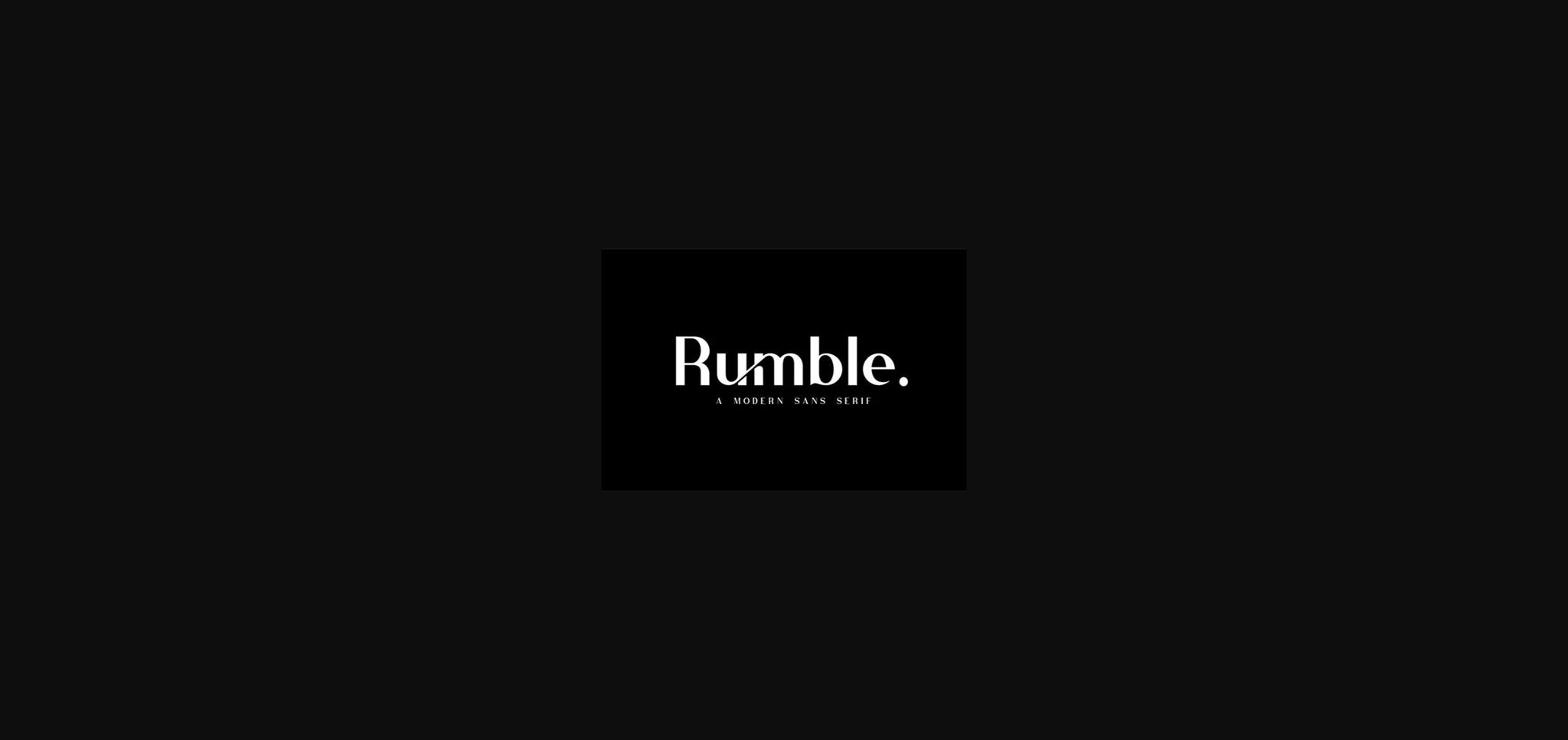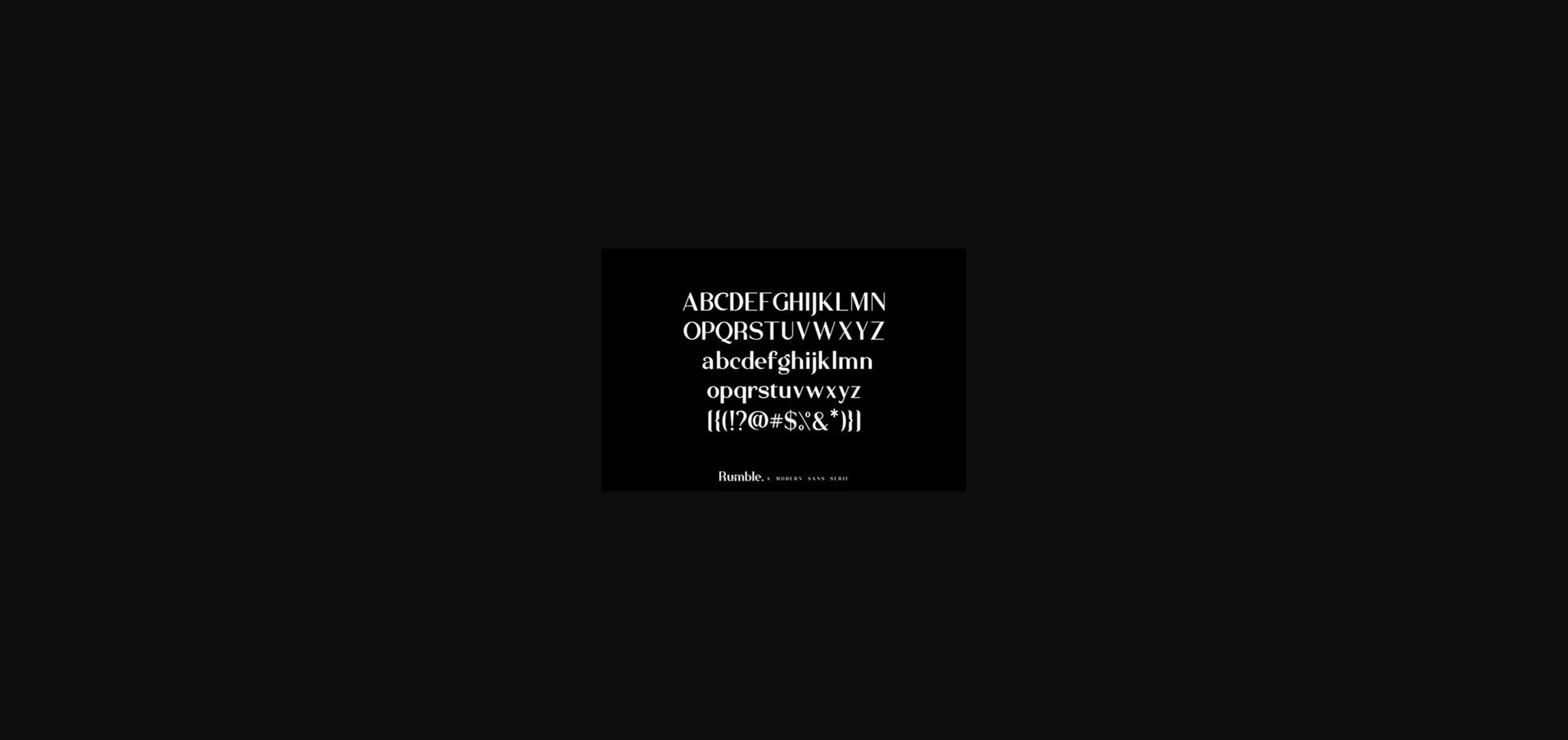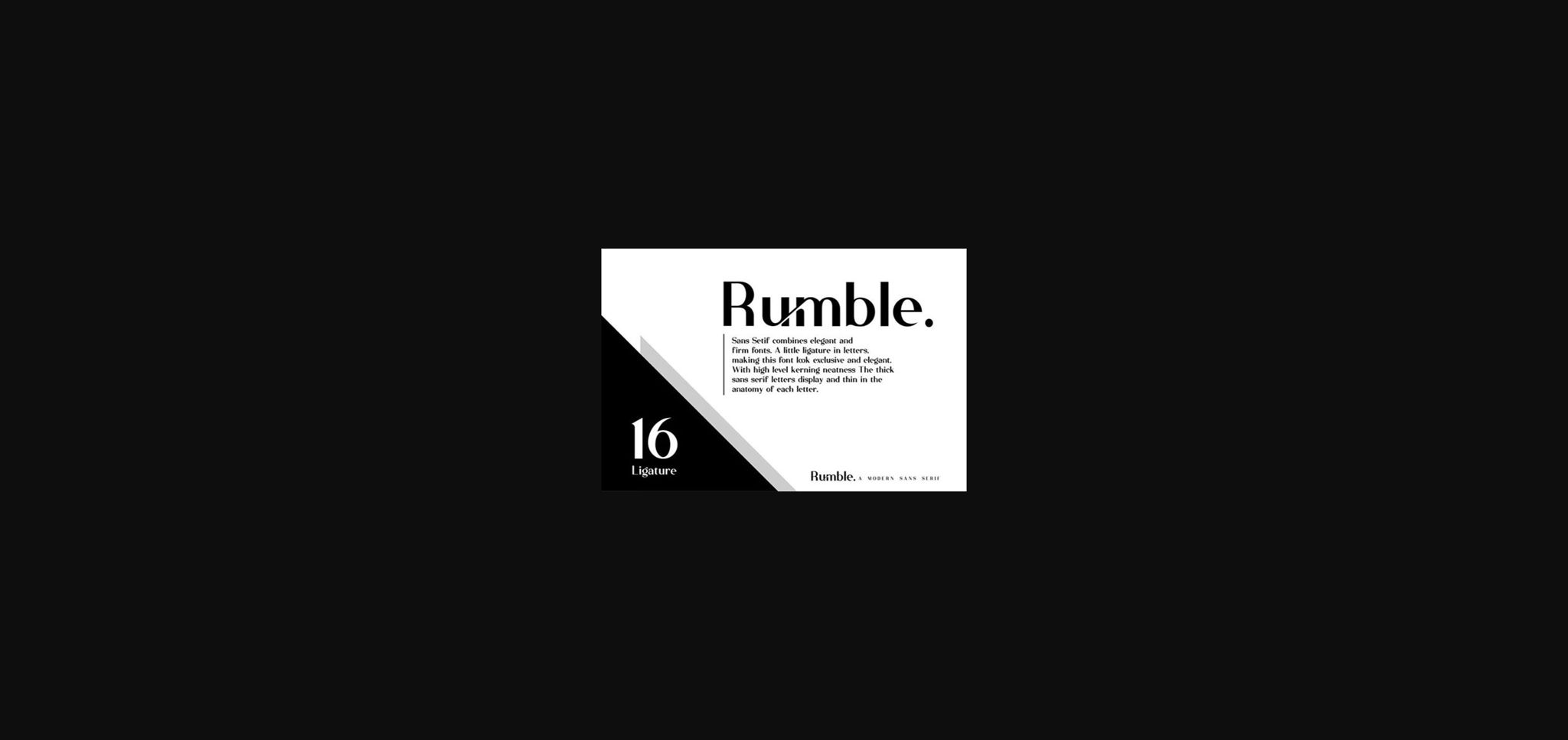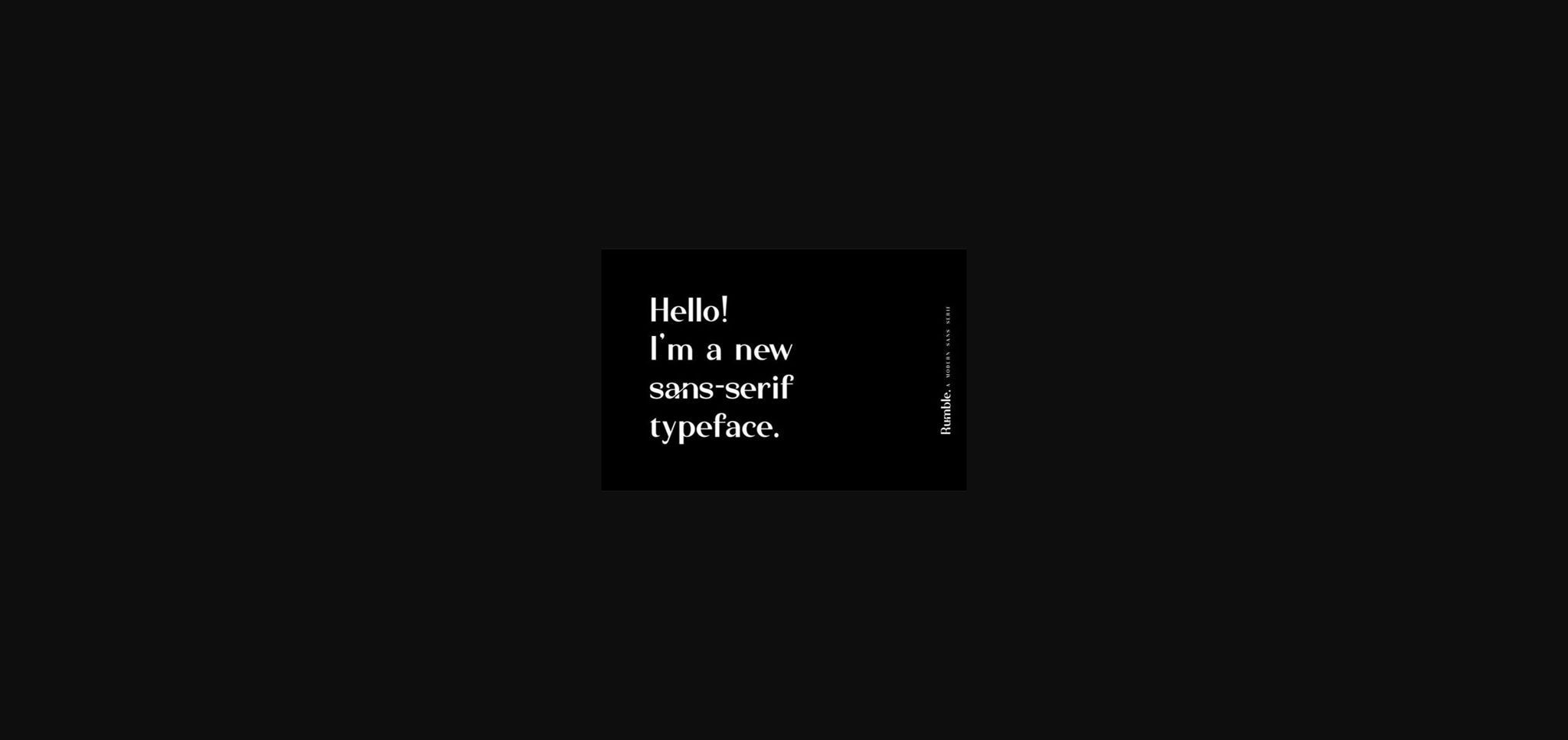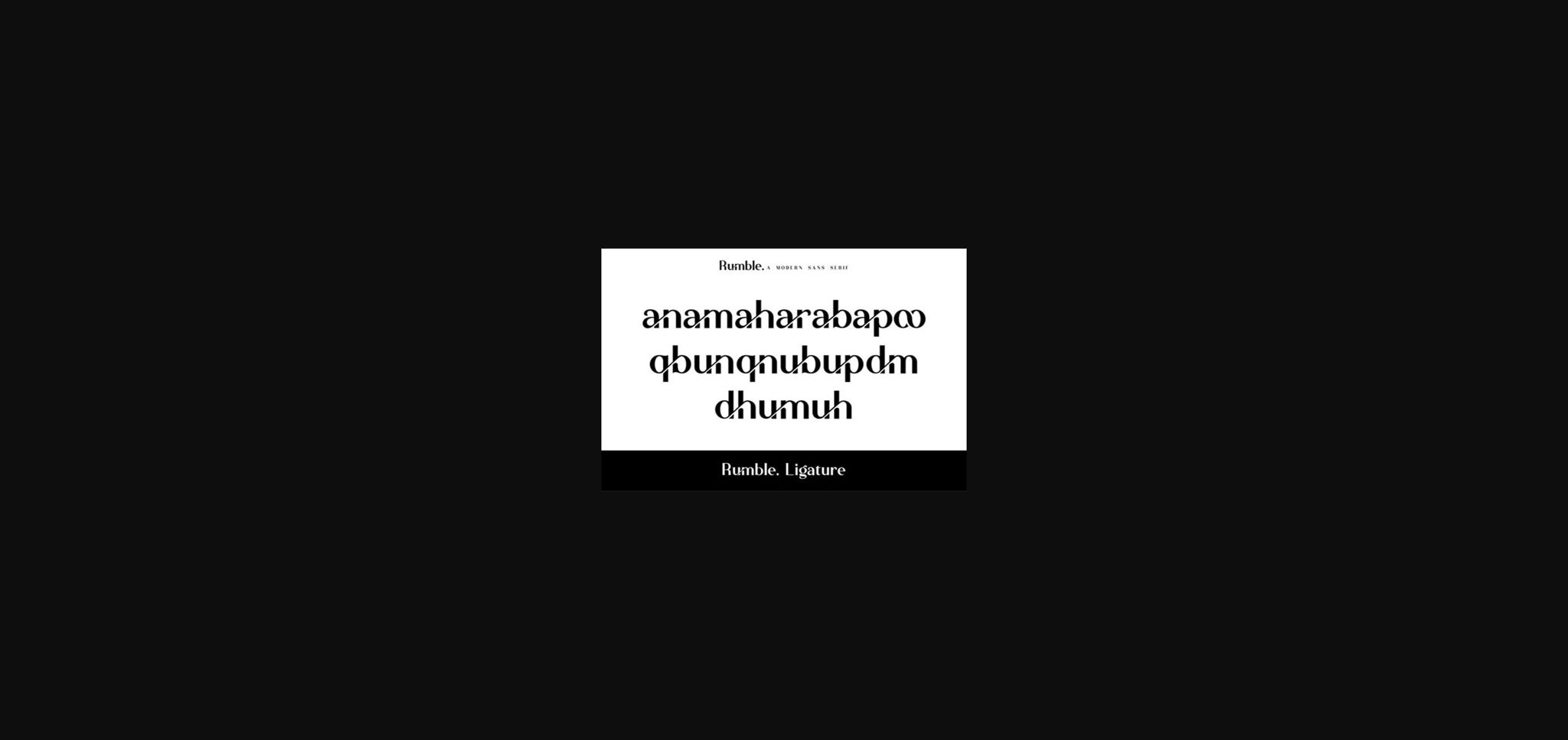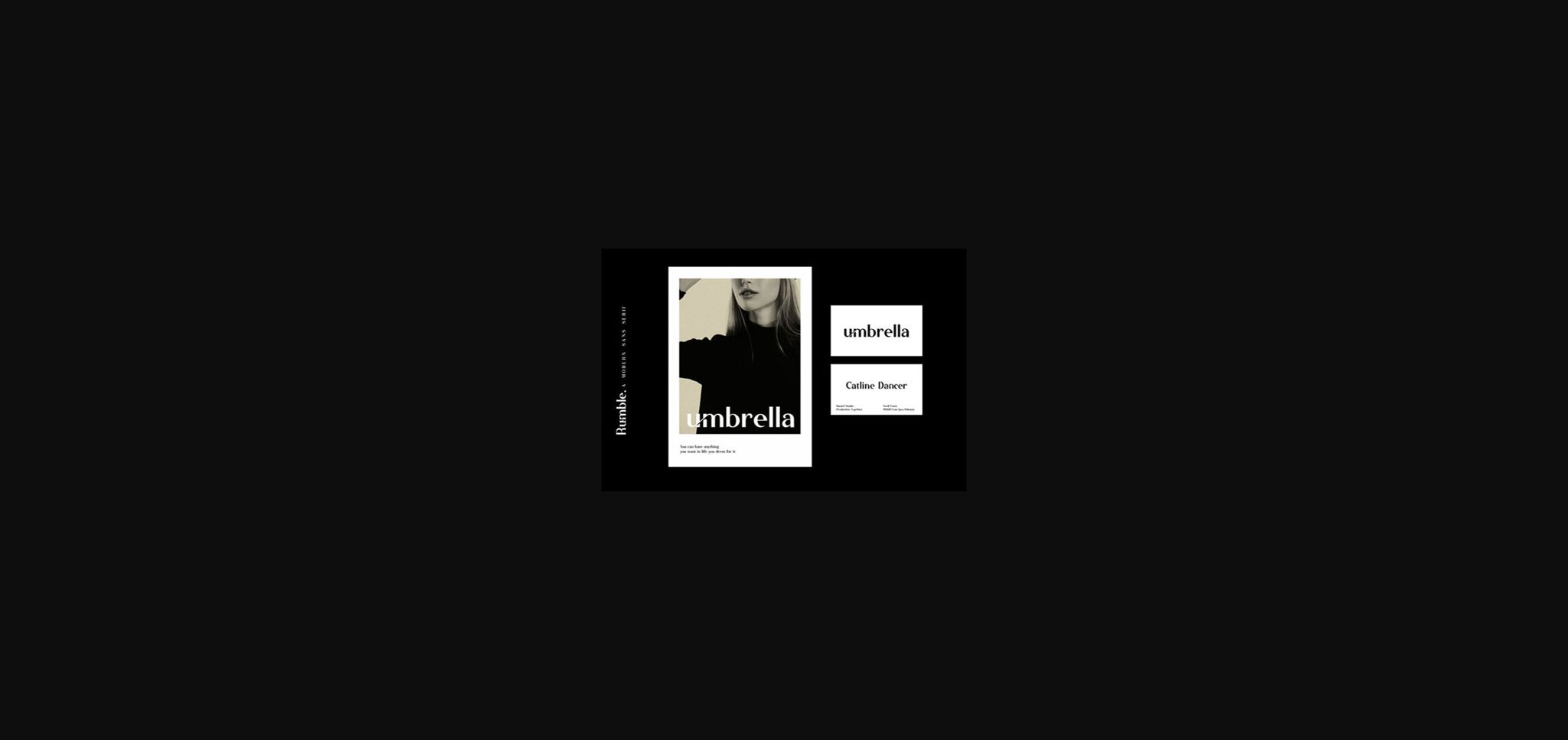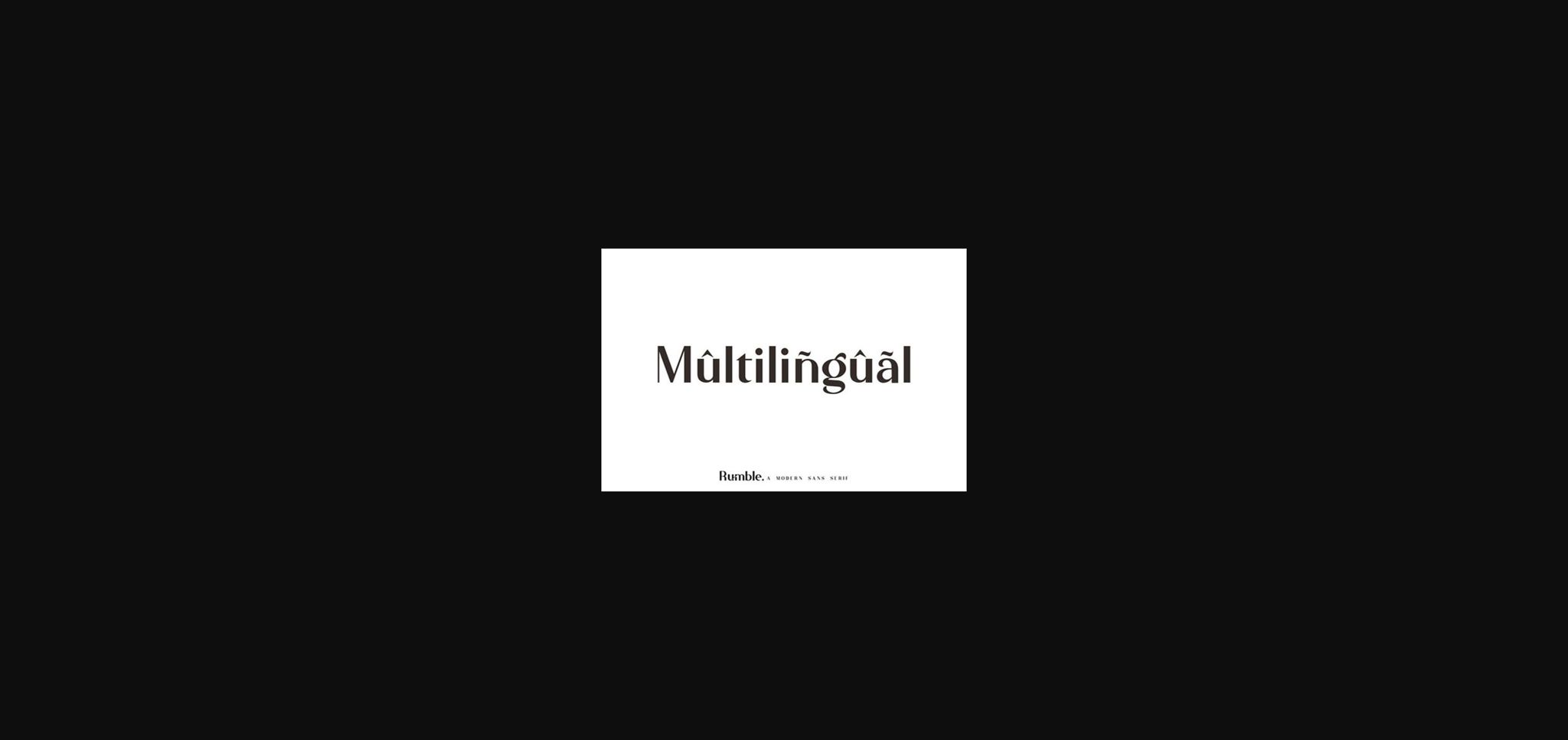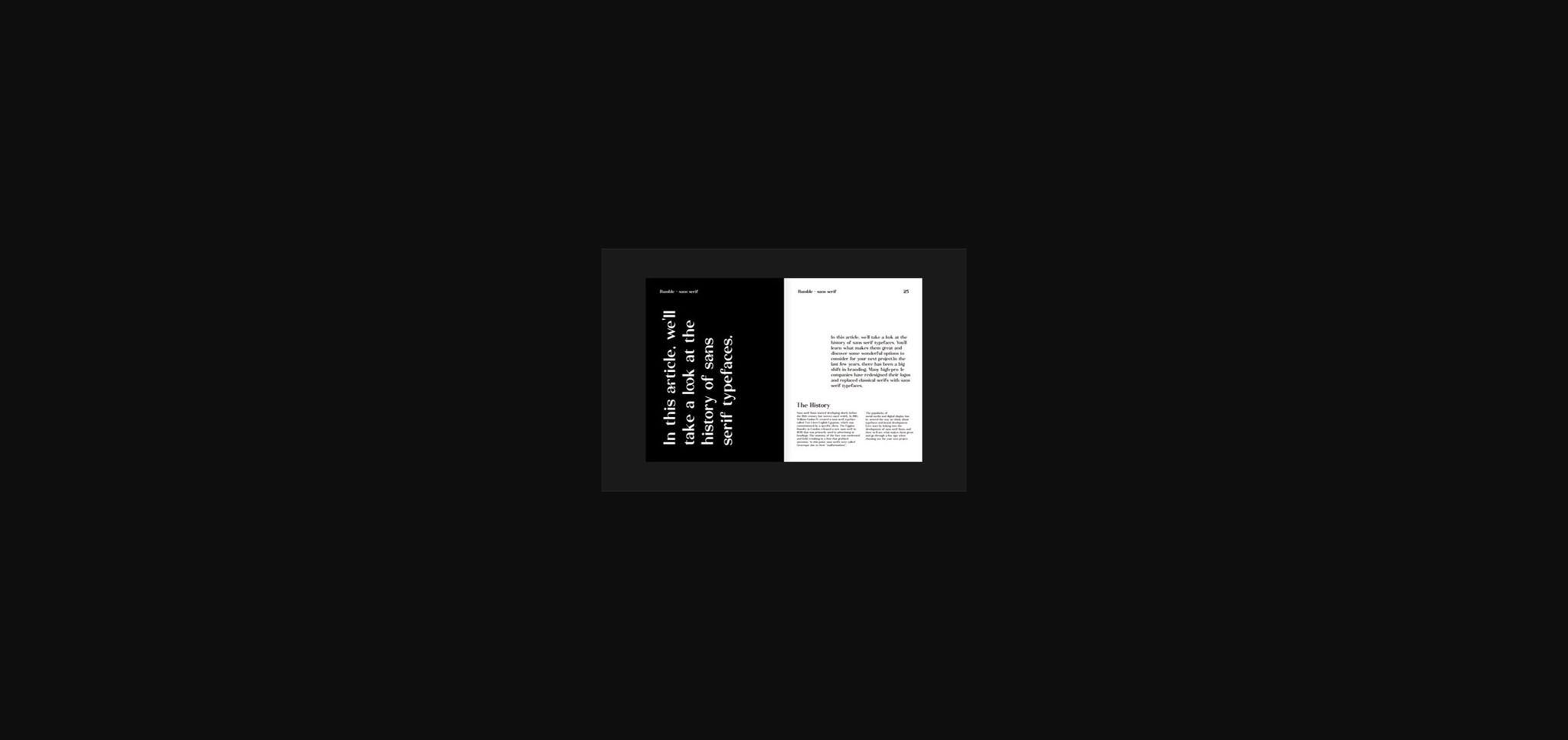
HomeSans Serif FontsRumble Font Sans Serif Fonts Rumble Font FacebookXPinterestWhatsApp 1 of 11 ... Rumble Font Poster 2... Rumble Font Poster 3... Rumble Font Poster 4... Rumble Font Poster 5... Rumble Font Poster 6... Rumble Font Poster 7... Rumble Font Poster 8... Rumble Font Poster 9... Rumble Font Poster 10... Rumble Font Poster 11... About Rumble Font Rumble is an elegant sans serif font with a modern edge. It will turn any design idea into a true standout. DOWNLOAD NOW People also explored Floridays Font Brush Splash Font Mr. Fix It Font Midnight Horrible Font Anqok Bajabi Font Affilliatte Area Font Sunday Monday Font Lemon Grass Font Body Font 281 0 TagsRumbleRumble Font Previous articleFinis Text FontNext articleEasy Breezy Font LEAVE A REPLY Cancel reply Comment: Please enter your comment! Name:* Please enter your name here Email:* You have entered an incorrect email address! Please enter your email address here Website: Save my name, email, and website in this browser for the next time I comment. Personal Use Free Tomatoes Personal Use Free Read more about this font Nulshock Bold Personal Use Free Read more about this font Black Personal Use Free Read more about this font Wondery Personal Use Free Read more about this font BLOG Free vs Paid Fonts: Why Investing in Premium Fonts Is Worth It Free vs Paid Fonts: Why Premium Fonts Are Worth It in 2025 The debate of free vs paid fonts continues in the design world. While... Modern Sans-Serif Fonts That Brands Love in 2025 Using Fonts in Digital Marketing: Tips to Strengthen Your Brand Identity Fonts That Capture the Spirit of New York City